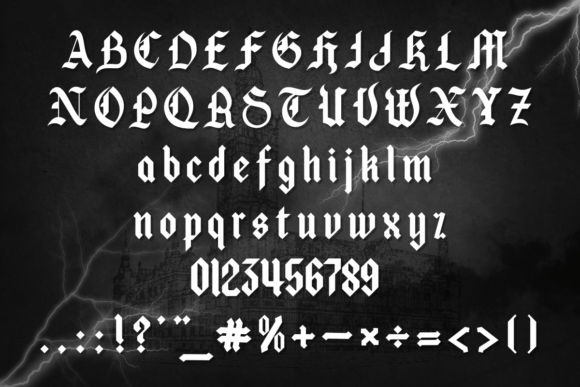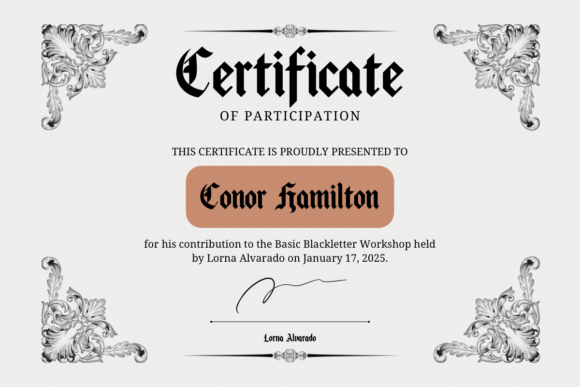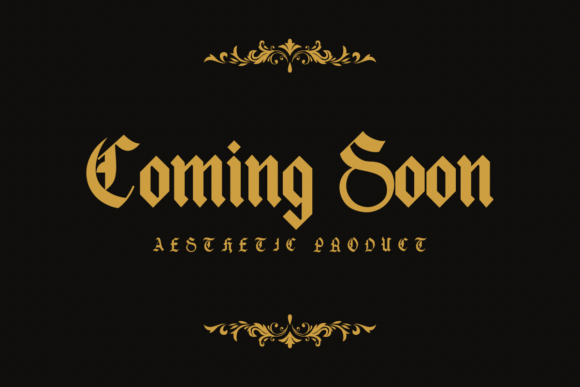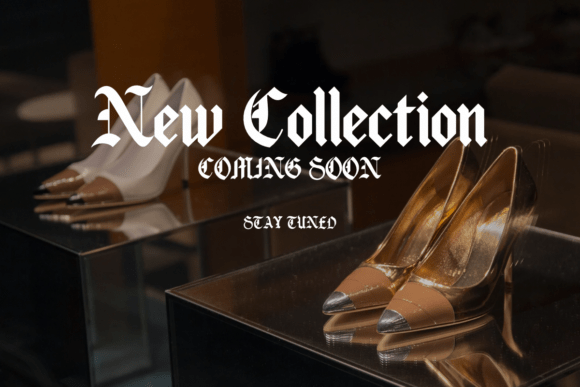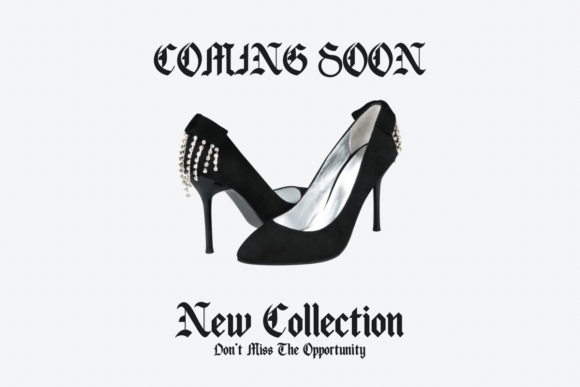
Discover the Mysterious Charm of Dark Old English Font
Are you a designer, crafter, or enthusiast looking for a unique and captivating font to elevate your creative projects? Look no further than the Dark Old English Font, a stunning blackletter font that’s sure to add a touch of mystery and sophistication to your work. In this article, we’ll delve into the world of Dark Old English Font, exploring its history, characteristics, and uses, as well as providing tips on how to incorporate it into your designs.
What is Dark Old English Font?
Dark Old English Font is a type of blackletter font, a style of calligraphy that originated in the Middle Ages. Characterized by its dramatic, Gothic-inspired letterforms, blackletter fonts are often associated with medieval manuscripts, ancient texts, and mystical or occult themes. Dark Old English Font takes this classic style and infuses it with a modern, bold twist, making it perfect for designers and crafters seeking a distinctive and eye-catching aesthetic.
The History of Blackletter Fonts
Blackletter fonts have a rich history dating back to the 12th century, when they were used in illuminated manuscripts and other handwritten texts. The style evolved over the centuries, influencing various forms of calligraphy and typography. During the Renaissance, blackletter fonts fell out of favor, replaced by more classical and elegant typefaces. However, in recent years, there has been a resurgence of interest in blackletter fonts, particularly among designers and crafters looking for unique and creative ways to express themselves.
Characteristics of Dark Old English Font
So, what makes Dark Old English Font so special? Here are a few key characteristics that set it apart:
- Bold and dramatic letterforms: Dark Old English Font features thick, expressive lines and sharp, angular shapes, giving it a commanding presence on the page.
- Intricate details: The font includes intricate flourishes and ornamentation, adding to its sense of mystery and luxury.
- High contrast: The font’s high contrast between thick and thin lines creates a sense of visual drama, making it perfect for headlines, titles, and other display text.
Using Dark Old English Font in Your Designs
Dark Old English Font is an incredibly versatile font that can be used in a wide range of creative projects, from:
- Graphic design: Use Dark Old English Font to create striking logos, posters, and brochures that demand attention.
- Crafting and scrapbooking: Add a touch of medieval charm to your scrapbook pages, cards, and other paper crafts.
- Digital art: Incorporate Dark Old English Font into your digital art, illustrations, and mixed media projects for a bold, eye-catching effect.
Tips for Working with Dark Old English Font
To get the most out of Dark Old English Font, here are a few tips to keep in mind:
- Use it sparingly: Due to its bold and dramatic nature, Dark Old English Font is best used sparingly, as a headline or title font.
- Pair it with contrasting fonts: Combine Dark Old English Font with simpler, more elegant fonts to create visual interest and contrast.
- Experiment with colors and textures: Dark Old English Font looks stunning in a range of colors and textures, from metallic gold and silver to distressed, vintage-inspired backgrounds.
In conclusion, Dark Old English Font is a unique and captivating font that’s sure to add a touch of mystery and sophistication to your creative projects. With its bold, dramatic letterforms and intricate details, it’s the perfect choice for designers and crafters seeking a distinctive and eye-catching aesthetic. So why not give it a try? Download Dark Old English Font today and discover the magic of blackletter typography for yourself!